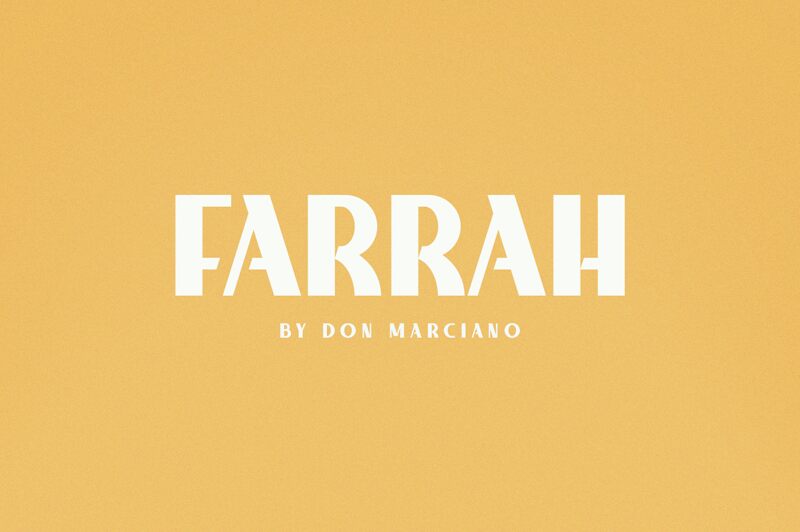
Farrah Bold
Farrah Bold is a bold, retro display font created by Juan Miguel Castillo. It's perfect for creating vintage-inspired designs like logos, posters, and album covers. Its unique style will make any project stand out!